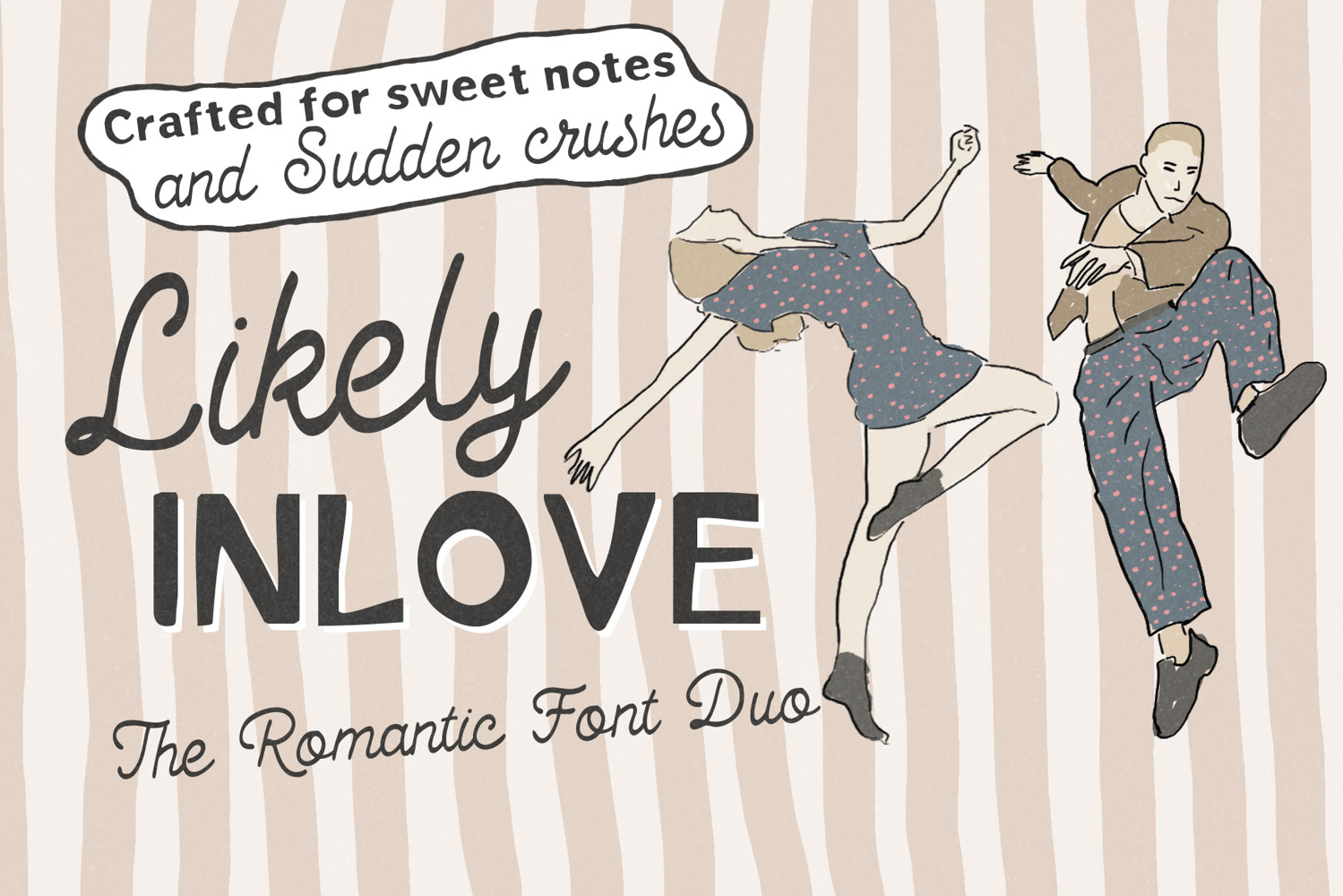
Likely Inlove is a perfectly paired dual font that brings together a clean, hand-drawn sans-serif (Regular) and an elegant, flowing script.
Crafted to create seamless visual harmony, this duo delivers a warm, casual, and deeply natural touch to any creative project.
Whether used together or separately, Likely Inlove is incredibly versatile and perfect for wedding invitations, branding and logos, product packaging, social media graphics, merchandise, quote layouts, and heartfelt greeting cards.